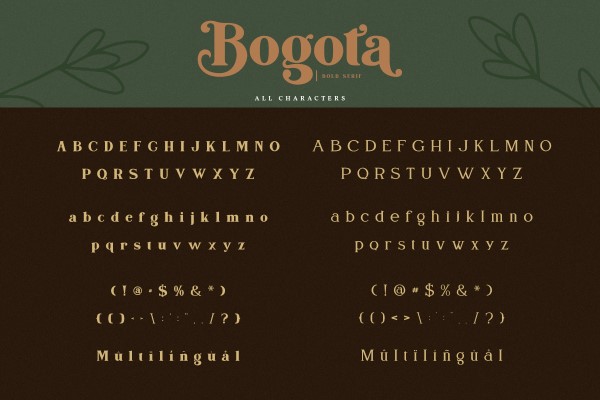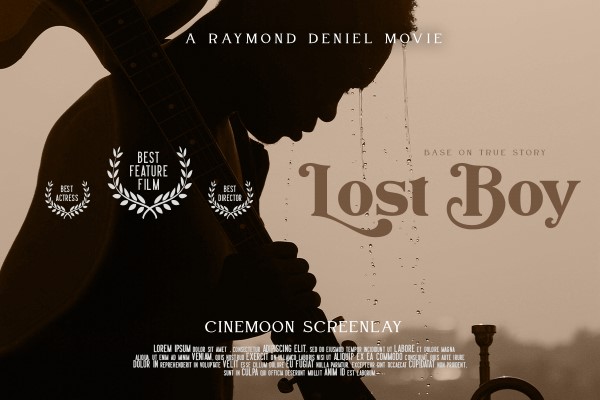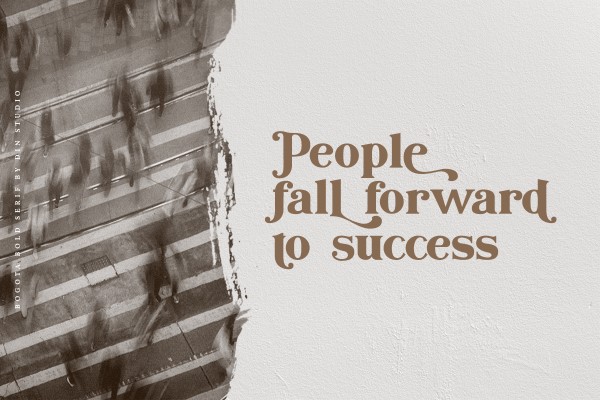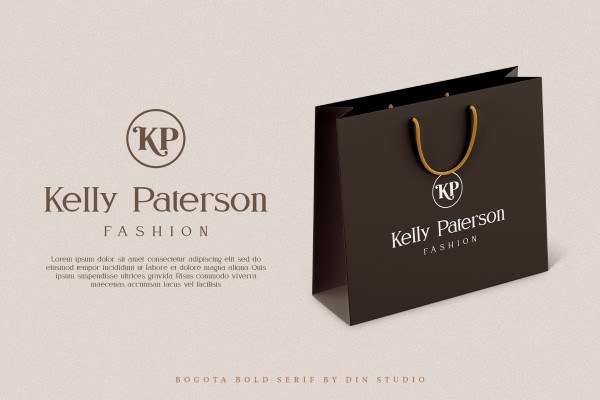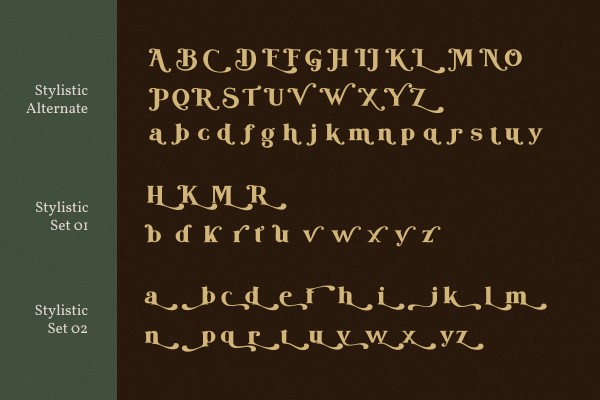
Bogota – Modern Serif Font
Bogota Bold
Hello, Everyone! Let’s welcome the Bogota font, a modern and clean display (Serif) font created by our talented font designers. The typeface design makes your designs more beautiful and inspiring. This font is suitable for any projects, like brandings, printed templates, logos, etc. The font is also available in a thin version (pairing font).
Features include:
- Accents (Multilingual characters)
- Alternates
- Numerals and Punctuations (OpenType Standard)
Afrikaans, Albanian, Asu, Basque, Bemba, Bena, Breton, Chiga, Cornish, Danish, Dutch, English, Faroese, Filipino, Friulian, Galician, German, Gusii, Indonesian, Irish, Italian, Kabuverdianu, Kalenjin, Kinyarwanda, Luo, Luxembourgish, Luyia, Machame, Makhuwa-Meetto, Makonde, Malagasy, Manx, Morisyen, North Ndebele, Norwegian Bokmål, Norwegian Nynorsk, Nyankole, Oromo, Portuguese, Quechua, Romansh, Rombo, Rundi, Rwa, Samburu, Sango, Sangu, Scottish Gaelic, Sena, Shambala, Shona, Soga, Somali, Spanish, Swahili, Swedish, Swiss German, Taita, Teso, Uzbek (Latin), Vunjo, Zulu